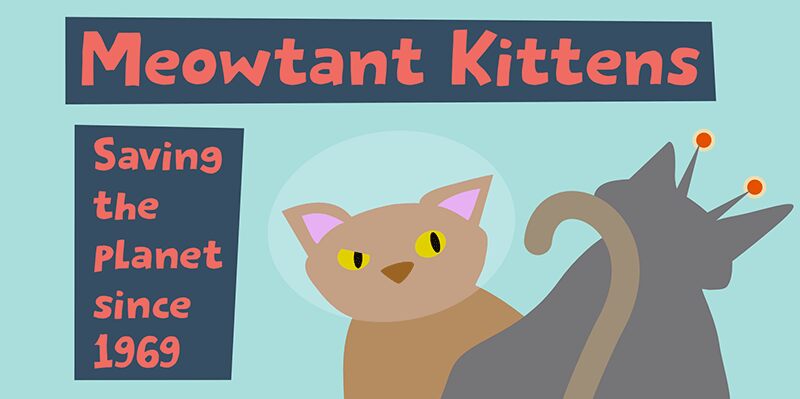
Meowtant Kittens font by Hanoded is a standout cartoon-style display font that exudes playfulness and charm. With its bold weight, this free font captures attention, perfect for playful designs and creative projects. The quirky curves and energetic lines make it ideal for children’s books, posters, and game design, adding a whimsical touch to any visual.
Bold yet approachable, Meowtant Kittens font invites engagement while offering versatility in fun-filled contexts. Download Meowtant Kittens today to infuse your designs with personality and a delightful sense of adventure.